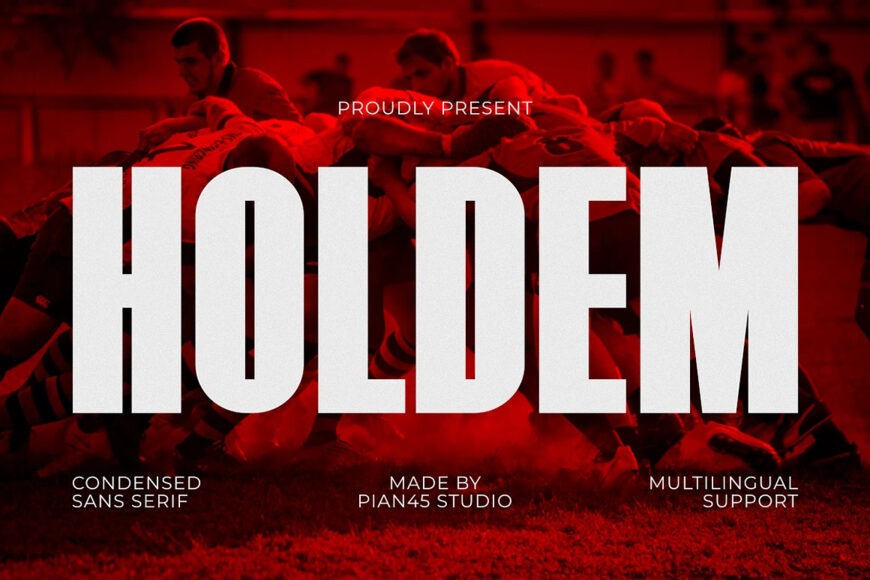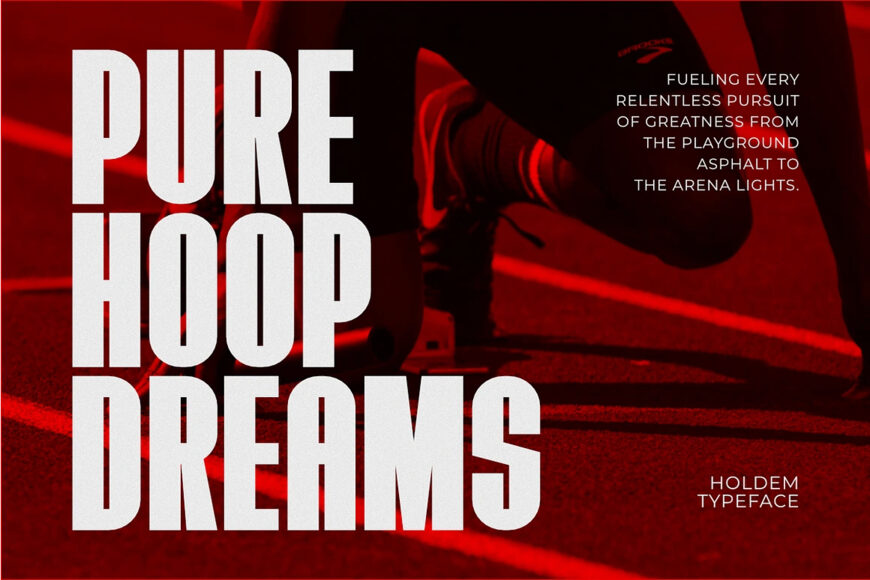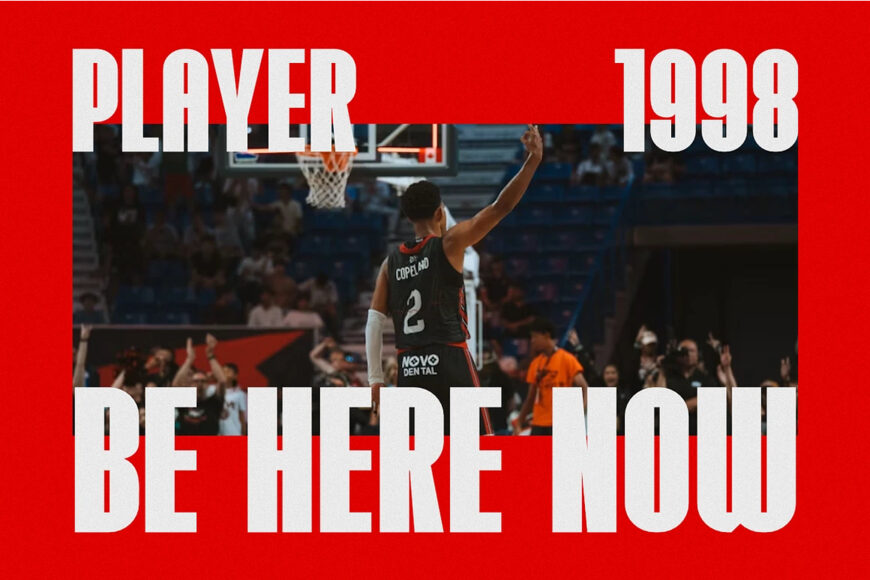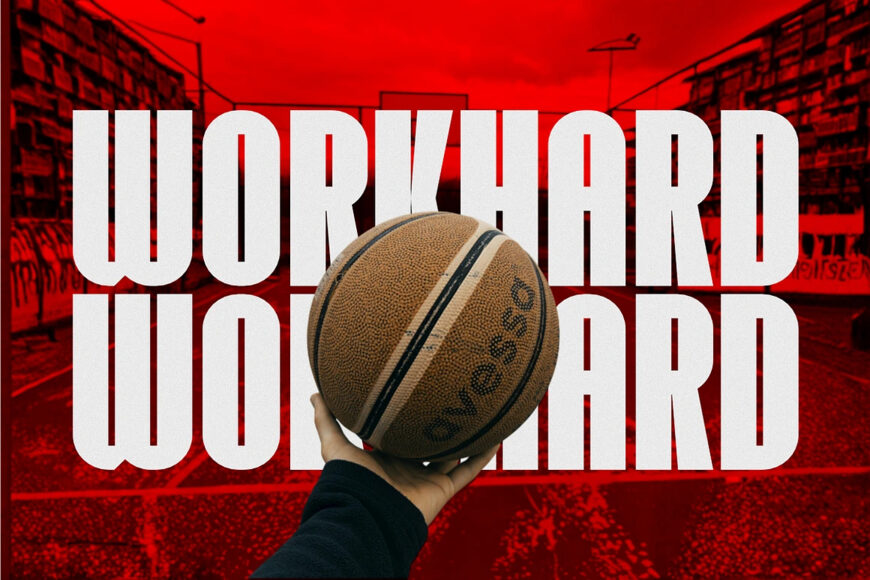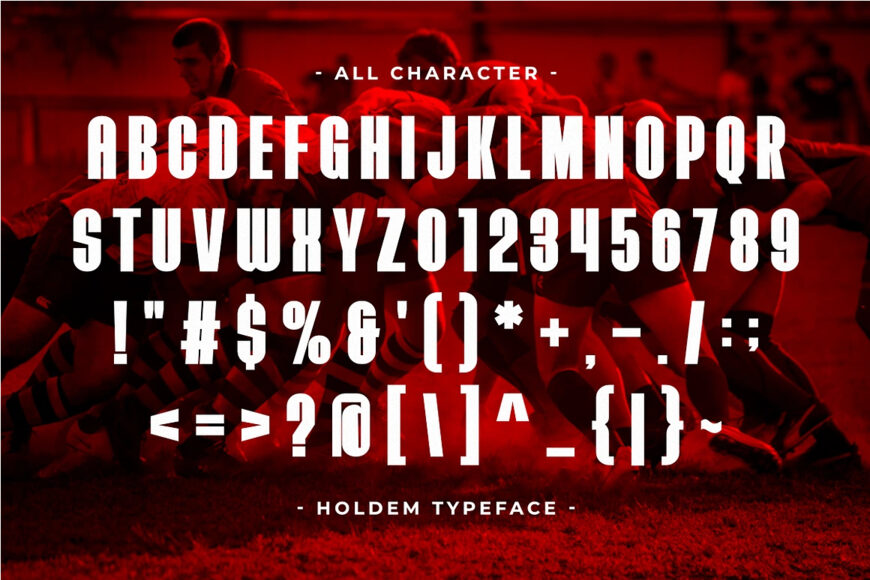
Holdem is a powerful, high-impact Modern Condensed Sans Serif font engineered to capture raw energy and intense competition. Featuring solid vertical proportions, clean blocky structures, and a space-saving condensed typeface geometry, this all-caps font is built for sports branding, rugby and football team logos, high-intensity fitness apparel, and modern gaming graphics.